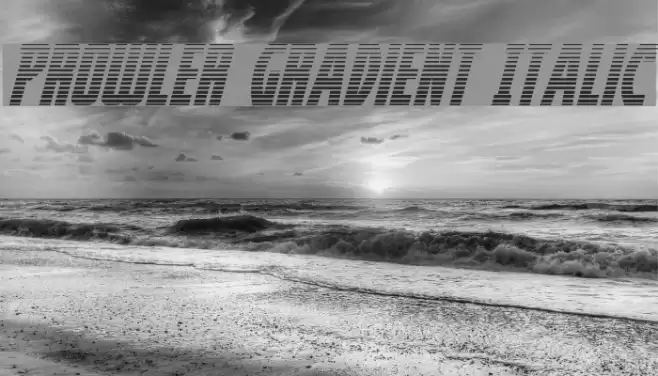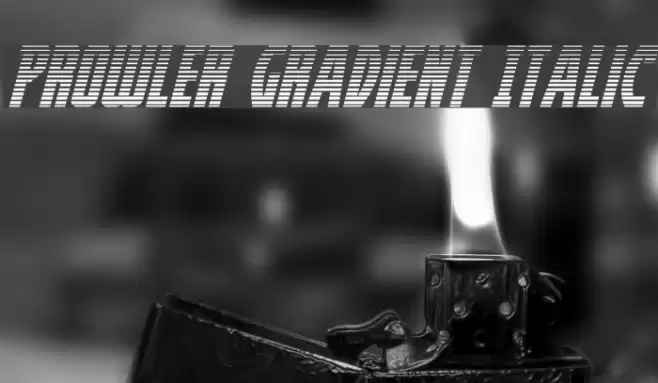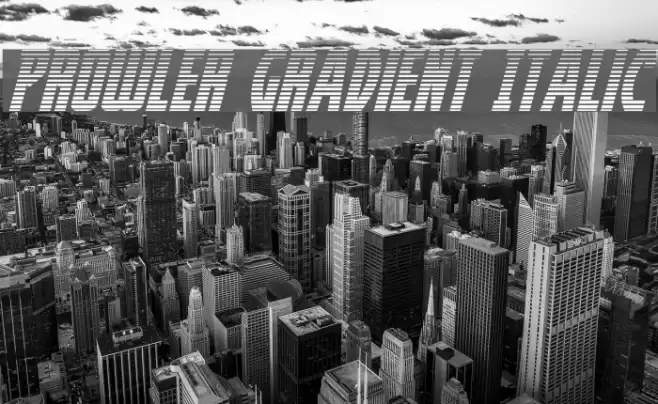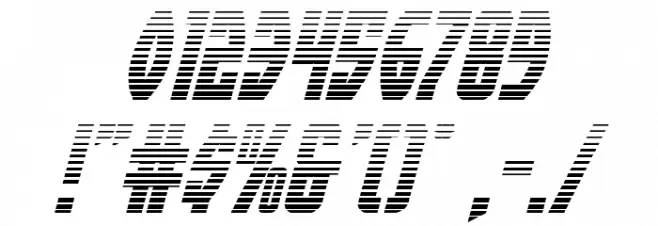
Prowler Gradient Italic Font
Prowler Gradient Italic Description
This font features a bold, italicized style with a distinctive gradient effect that gives it a dynamic and modern appearance. The characters are composed of horizontal lines that create a sense of movement and energy. The uppercase and lowercase letters maintain a consistent width, while the numbers and special characters follow the same design principle, ensuring uniformity across all glyphs. The font's unique design makes it stand out, making it ideal for projects that require a strong visual impact.
A bold, italicized font with a dynamic gradient effect and horizontal line design from Uncategorized fonts.
- Proposed Projects: Ideal for branding, posters, and headlines where a strong, modern aesthetic is desired.